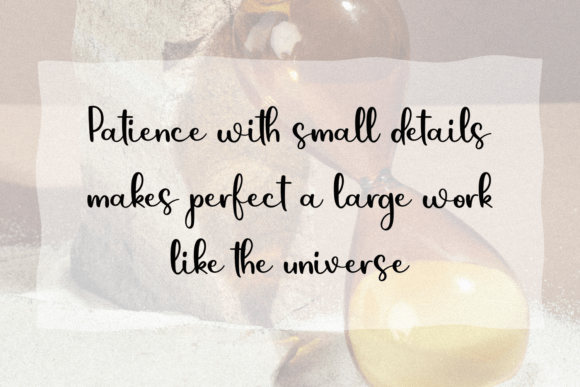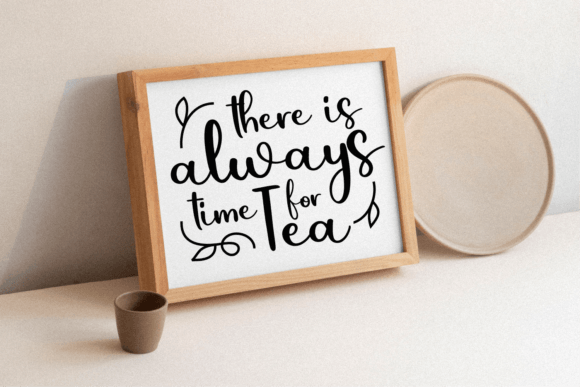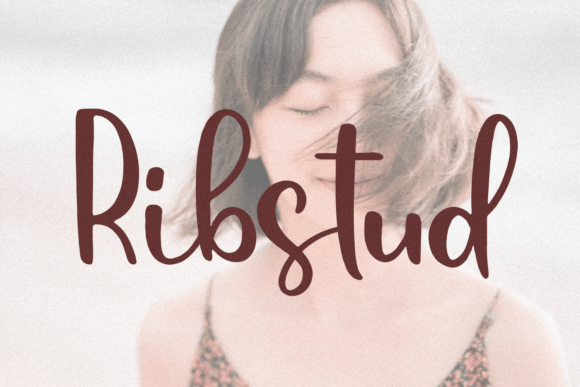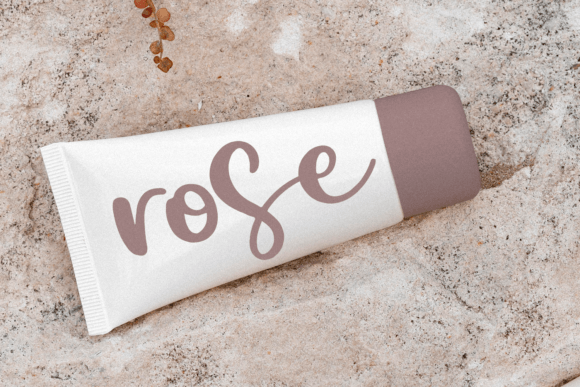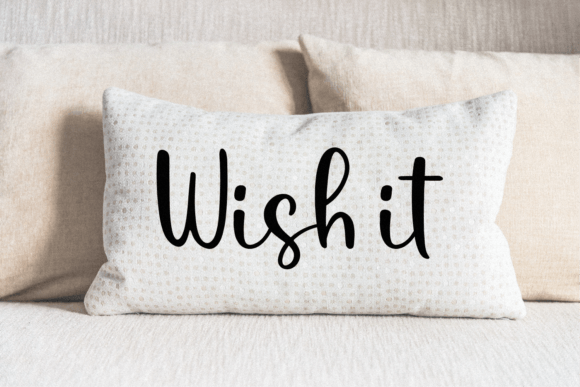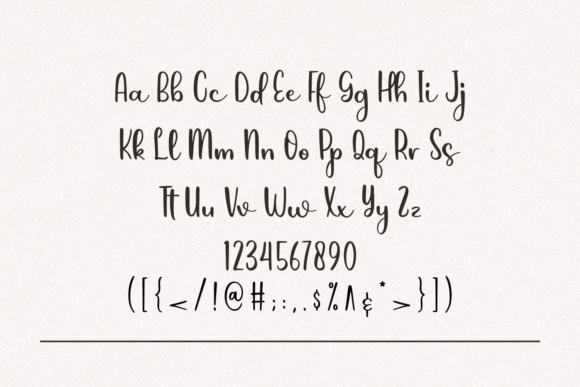
Introduction to Pelicana Font
As you sit at your desk, surrounded by scraps of paper, half-finished designs, and a cup of cold coffee, you’re struck by the perfect idea for your next creative project. The excitement is palpable, but the challenge lies in finding the perfect font to bring your vision to life. That’s where the Pelicana Font comes in – a beautiful, handwritten script that will elevate your designs and make them truly unforgettable.
Whether you’re working on a wedding project, creating a signature for your blog, or designing a logo for your business, the Pelicana Font is an invaluable design resource. Its classic, bohemian feel is perfect for a wide range of creative pursuits, from magazine layouts to social media posts. And the best part? You can download it for free, complete with a transparent background, making it easy to integrate into any design.
With its high-quality design and versatility, the Pelicana Font is a must-have for any designer looking to add a touch of elegance and sophistication to their work. So why wait? Dive into the world of creative possibilities with the Pelicana Font and discover a whole new level of design excellence.
Pelicana Font
- High-quality design: This font features a unique and stylish design, suitable for a wide range of creative applications.
- Unique characteristics: The Pelicana Font features a distinctive and elegant style, with a mix of modern and vintage elements that set it apart from other fonts.
- Design versatility: This font is suitable for a wide range of creative projects, including logos, branding, packaging, and advertising materials.
Honest Review: Pelicana Font
I recently had the chance to experiment with the Pelicana Font for a creative project, and I must say, it was a pleasant surprise. I downloaded it for free, and was immediately impressed with the level of detail and care that went into its design.
What works well: ✨ The Pelicana Font has a beautiful, hand-drawn feel to it, making it perfect for projects that need a touch of whimsy and personality. The font also comes with a transparent background, which makes it easy to use and manipulate in design software.
Some limitations: ⚠️ While the font itself is high quality, I found that it can be a bit tricky to use in certain design contexts. For example, the font’s irregularities can sometimes make it difficult to read at smaller sizes. Additionally, the font’s unique style may not be suitable for all design projects.
Overall, I was impressed with the Pelicana Font, and would definitely recommend it as a design resource for creative projects. Just be sure to use it judiciously, and consider the context in which you’re using it.
- High-quality, hand-drawn design
- May be tricky to use in certain design contexts
- Not suitable for all design projects
Pelicana Font
Tips for Getting the Most Out of Pelicana Font
To get the most out of the Pelicana Font, try using it with a transparent background to create a modern and sleek look. You can also experiment with different font sizes and styles to add visual interest to your design.
The Pelicana Font is a great resource for designers, artists, and anyone looking to add a creative touch to their projects. Some common use cases include:
- Logos and branding
- Print and digital media